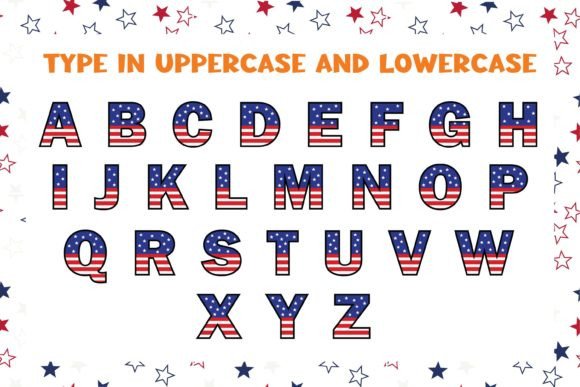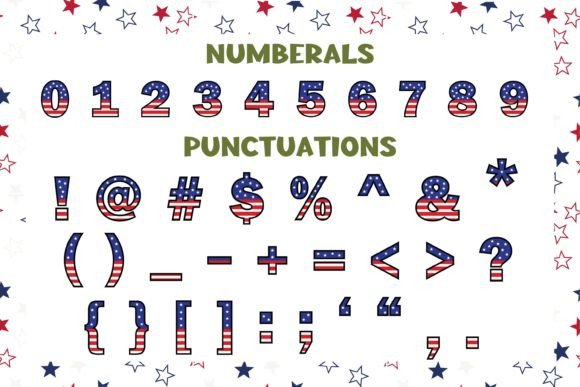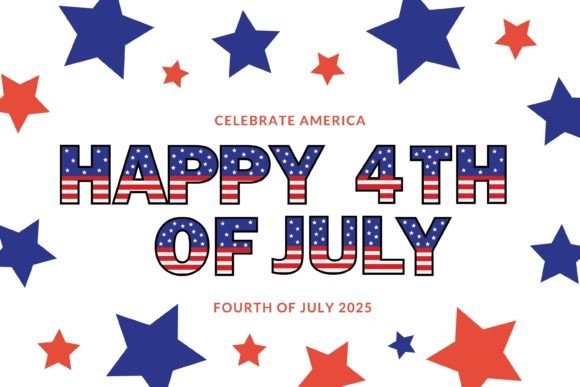
Introduction to Independence 4th of July Font
Remember the excitement of planning a summer project, pouring over design ideas, and finally settling on the perfect font to bring it all together? For many designers, the perfect font can make or break a creative project. If you’re looking for a fun and cheerful way to celebrate Independence Day, you’re in luck! The Independence 4th of July Font is here to add some patriotic flair to your designs.
This delightful font is perfect for adding a pop of color to your t-shirt designs, mugs, crafts, cards, stickers, and more. Whether you’re a seasoned designer or just starting out, the Independence 4th of July Font is a valuable resource that’s sure to elevate your projects. With its high-quality design and transparent background, you’ll be able to use it with ease in your favorite design programs.
Key Features of Independence 4th of July Font
- High-quality design perfect for creative projects, especially those related to the 4th of July celebrations.
- Comes with a transparent background, allowing for easy customization and integration into various design elements.
- Features a unique, patriotic design that’s perfect for adding a touch of American spirit to any project.
- Designed with a high resolution, making it suitable for use in large-scale designs, such as banners and posters.
Honest Review: Independence 4th of July Font
I recently had the chance to work with the Independence 4th of July Font, and I must say it’s a unique addition to any creative project. The font’s high quality and intricate design make it perfect for patriotic-themed designs, especially during the 4th of July celebrations.
What I like about this font is its versatility. It comes with a transparent background, which allows designers to easily place it over any image or background. This feature makes it a valuable design resource, especially for those who want to create visually appealing designs without much hassle.
Here are some of the font’s key features:
- High-quality design with intricate details
- Transparent background for easy placement
- Perfect for patriotic-themed designs and creative projects
What works well: ✨ The font’s unique design and high quality make it a great addition to any design project. The transparent background is also a plus, making it easy to place over any background.
Limitations: ⚠️ The font may not be suitable for projects that require a more neutral or simple design. Additionally, the font’s intricate details may not be readable at smaller font sizes.
Overall impression: I’m impressed with the Independence 4th of July Font and its potential to elevate any design project. With its high quality and versatility, it’s definitely a valuable design resource to have in your collection.
The Independence 4th of July Font is a versatile design resource that can be used in a variety of contexts, including: designing patriotic-themed projects, creating invitations or event flyers, and adding a touch of American flair to your branding or marketing materials.